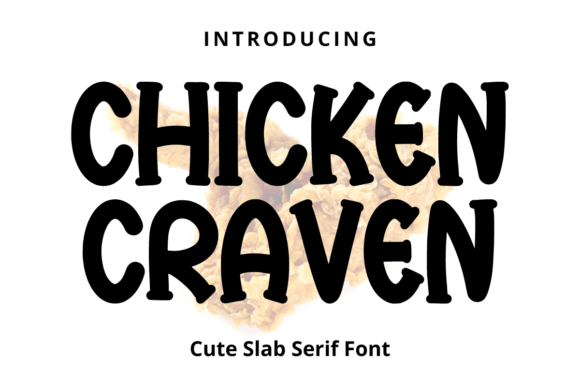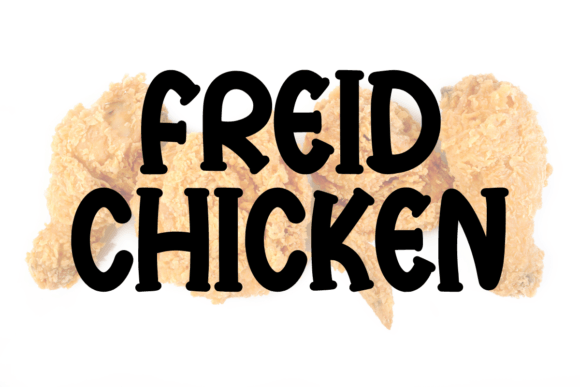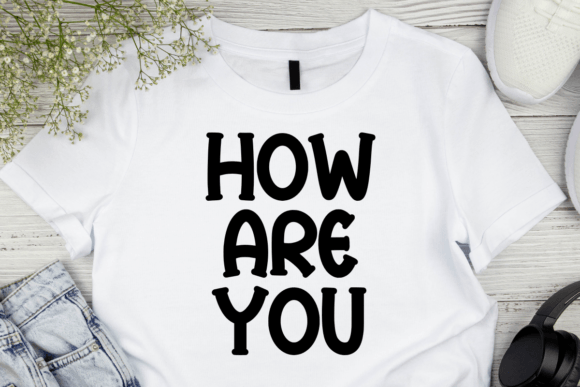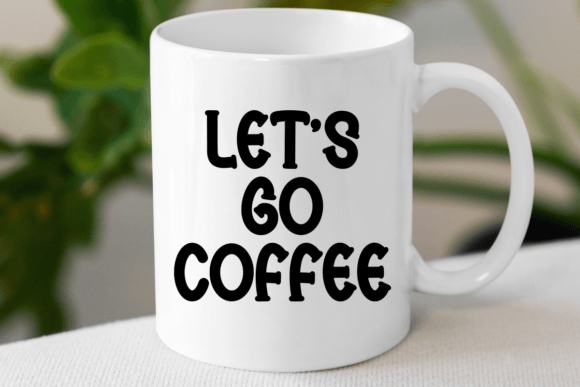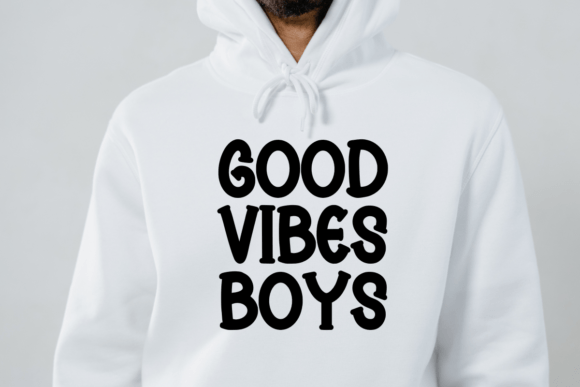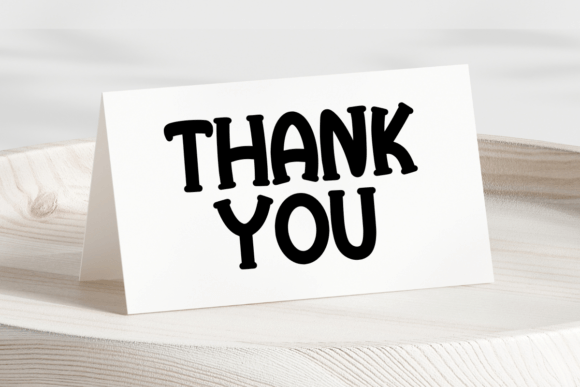
Chicken Craven Font
About Chicken Craven Font
Chicken Craven is a thick and Cute slab serif font. The wide characters and chunky serifs make this font ideal for eye-catching designs. You can use it for headlines, t-shirt typography, banners, product labels, and many more.